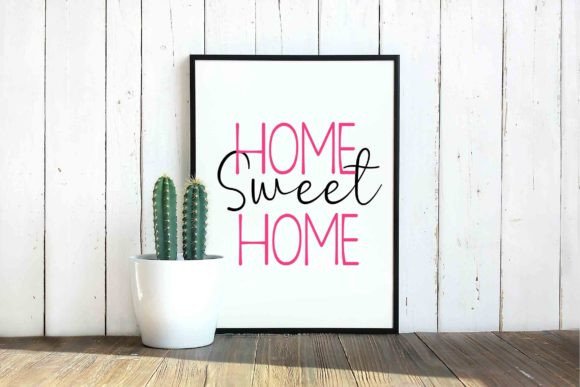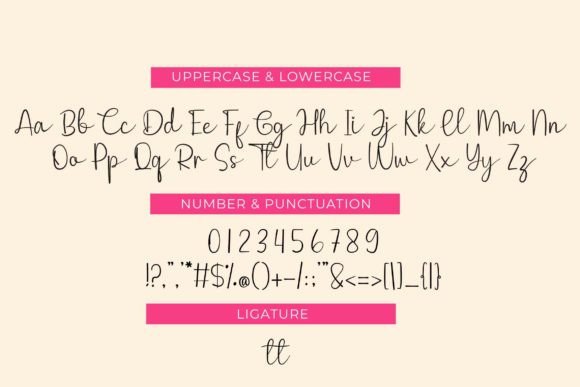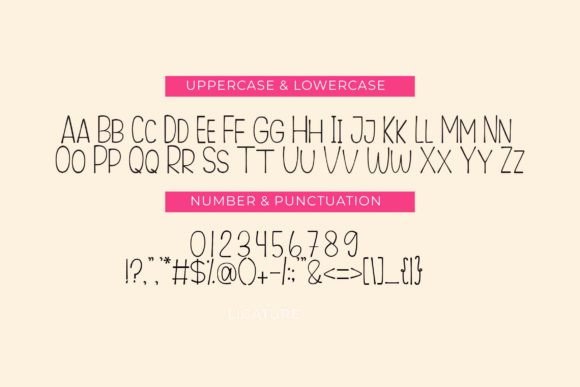
Introduction to Good Attitude Font
Have you ever been stuck in a creative rut, staring at a blank page with a deadline looming? I know I have. But then, something magical happens. A spark of inspiration strikes, and suddenly, the words start flowing. That’s exactly what the Good Attitude Font is all about – igniting your creativity and bringing your ideas to life.
As a designer, you’re always on the lookout for the perfect font to complement your project. And when you stumble upon a high-quality, free download like the Good Attitude Font, you know you’ve struck gold. This duo font is a game-changer, combining the elegance of handmade fonts with a transparent background that’s perfect for any creative project.
Key Features of Good Attitude Font
- High-quality design with a unique, playful style perfect for creative projects.
- Perfect for use in creative projects, such as logos, posters, and social media graphics, where a fun and energetic vibe is desired.
Honest Review: Good Attitude Font
I recently stumbled upon the Good Attitude Font while searching for a free download to spice up a creative project. I was excited to see that it’s available for free, which is always a plus. The font has a fun, playful vibe that would be perfect for any project that needs a boost of energy.
One of the standout features of the Good Attitude Font is its high quality. The font is crisp and clear, with a transparent background that makes it easy to use on any design surface. I’ve used it on several projects so far, and it’s always delivered great results.
- Fun, playful vibe that’s perfect for adding energy to a design
That being said, there are a few limitations to the Good Attitude Font:
- ⚠️ Limited font styles and variations
- ⚠️ Not ideal for formal or professional projects
Overall, I’m really impressed with the Good Attitude Font. It’s a great design resource that’s perfect for creative projects. While it may have a few limitations, it’s definitely worth checking out if you’re looking for a fun and energetic font to add some excitement to your designs. ✨”
To get the most out of the Good Attitude Font, use it on a transparent background to add a creative touch to your design. This high-quality font is perfect for making a statement in any creative project.
The Good Attitude Font is ideal for:
- Creating eye-catching social media graphics
- Designing engaging presentations and reports
- Developing unique branding materials
Yes, the Good Attitude Font is designed to be high-quality and scalable, making it suitable for use in high-resolution designs, such as those intended for print or large digital displays. The font is optimized for use at various sizes and resolutions, ensuring that it remains crisp and clear even at high magnifications.